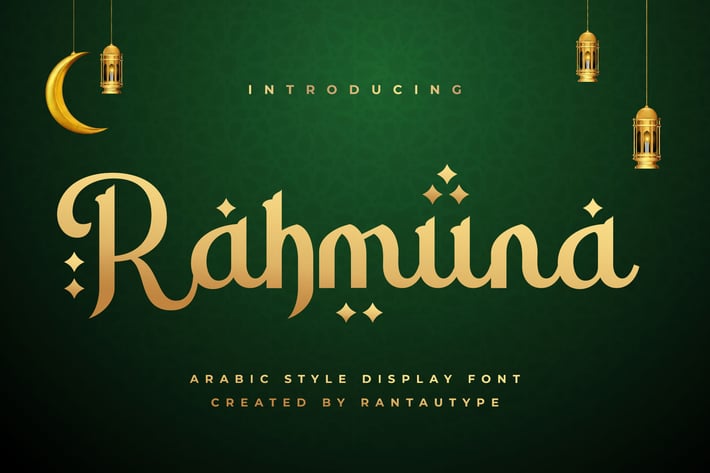
Rahmuna Arabic Font
Proudly present a Arabic Font font “Rahmuna”, by rantautype.
Rahmuna is inspired by Latin classic handwriting and Arabic letters called ‘hijaiyah’. You will get an Arabic feel to every text you type using this font. Rahmuna is elegant and luxurious with Sophisticated Arabic curve. We keep this font looks humanism, elegant, luxury, premium, modern, catchy and easy to use. Rahmuna come with extras and multinggual accent support.
Rahmuna is beautiful choice for any creative endeavor to make perfectly suitable for creating elegant, chic, lifestyle design such as logos, humanism project, title, cover, branding, display, magazine, corporate, business project, wedding project, advestising project and much more. Now you can choice rahmuna to make your project stand out!